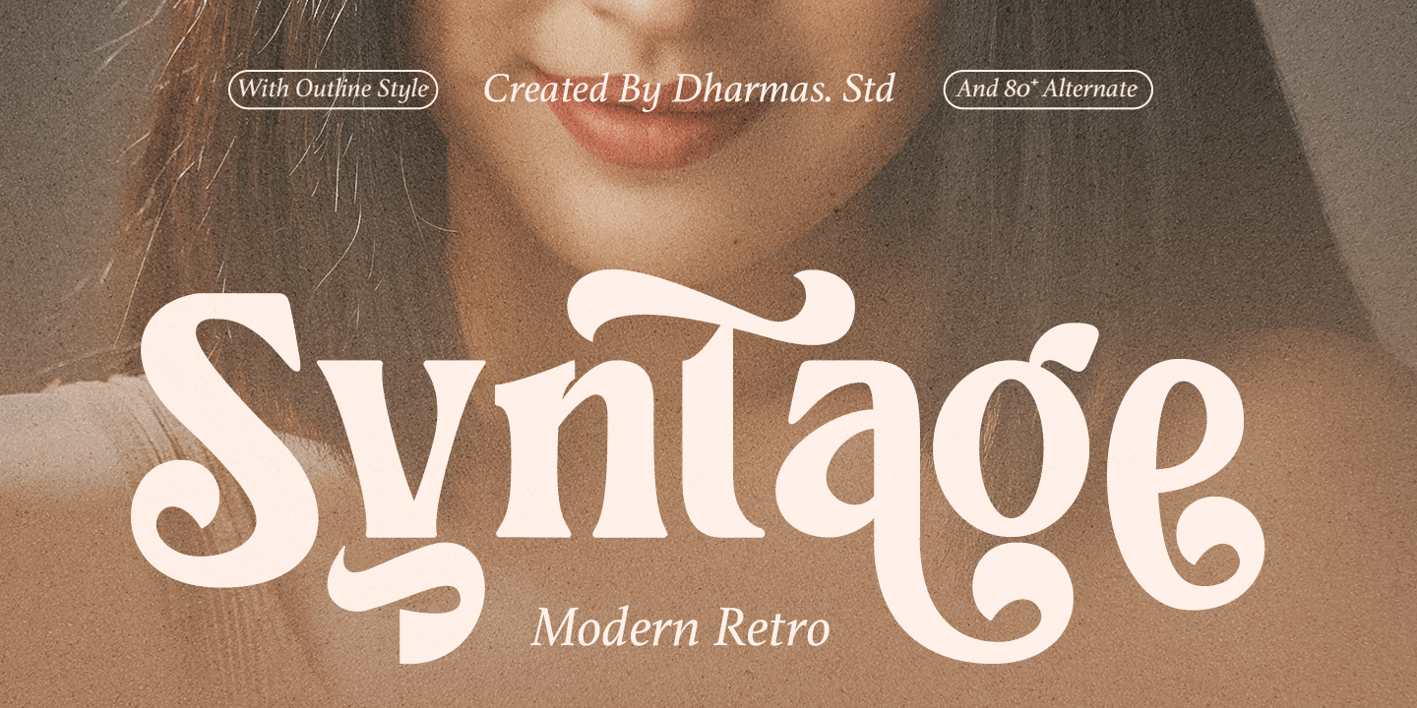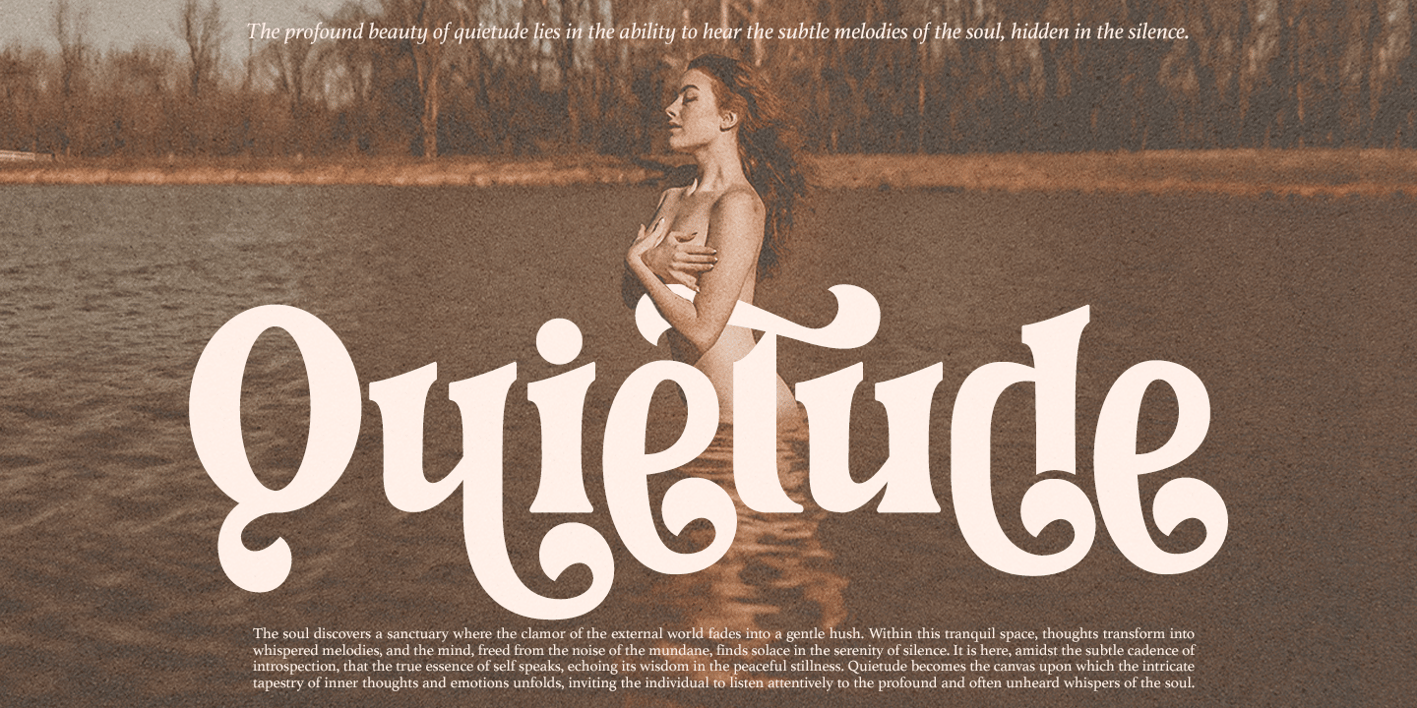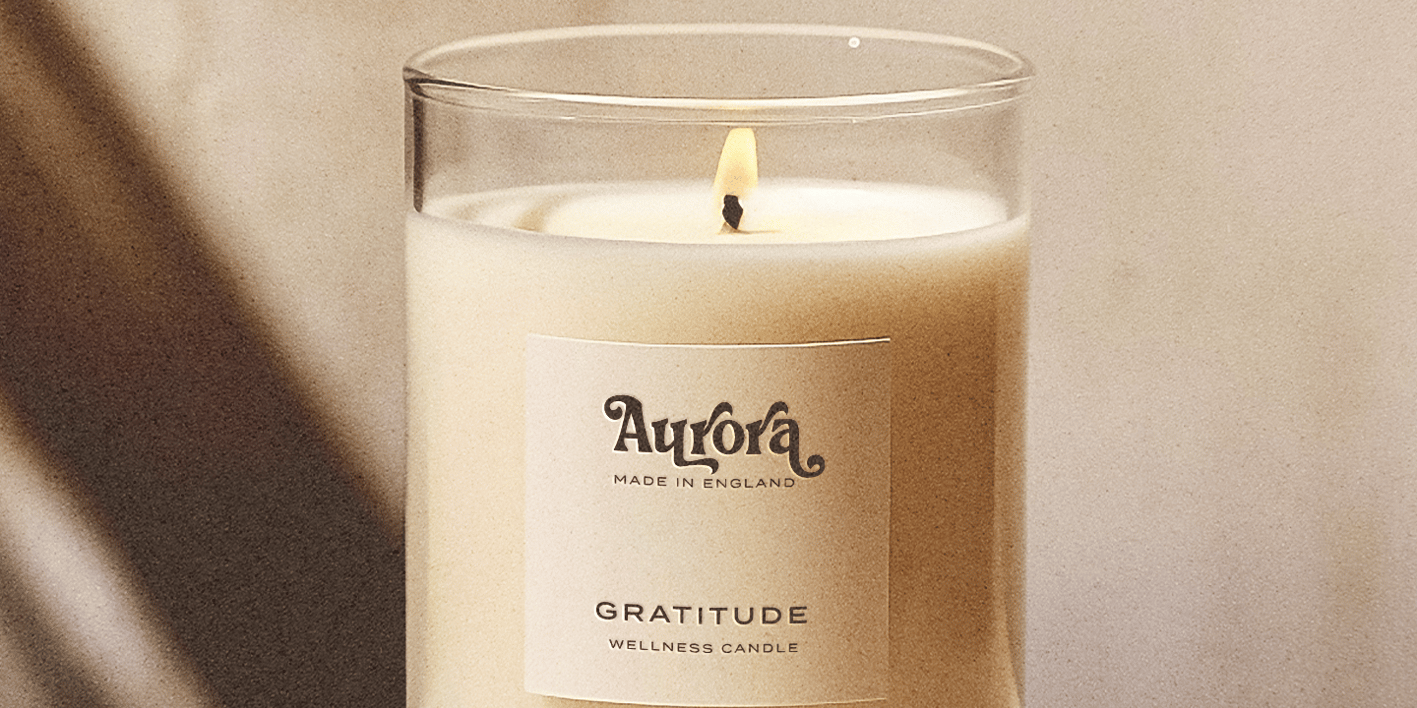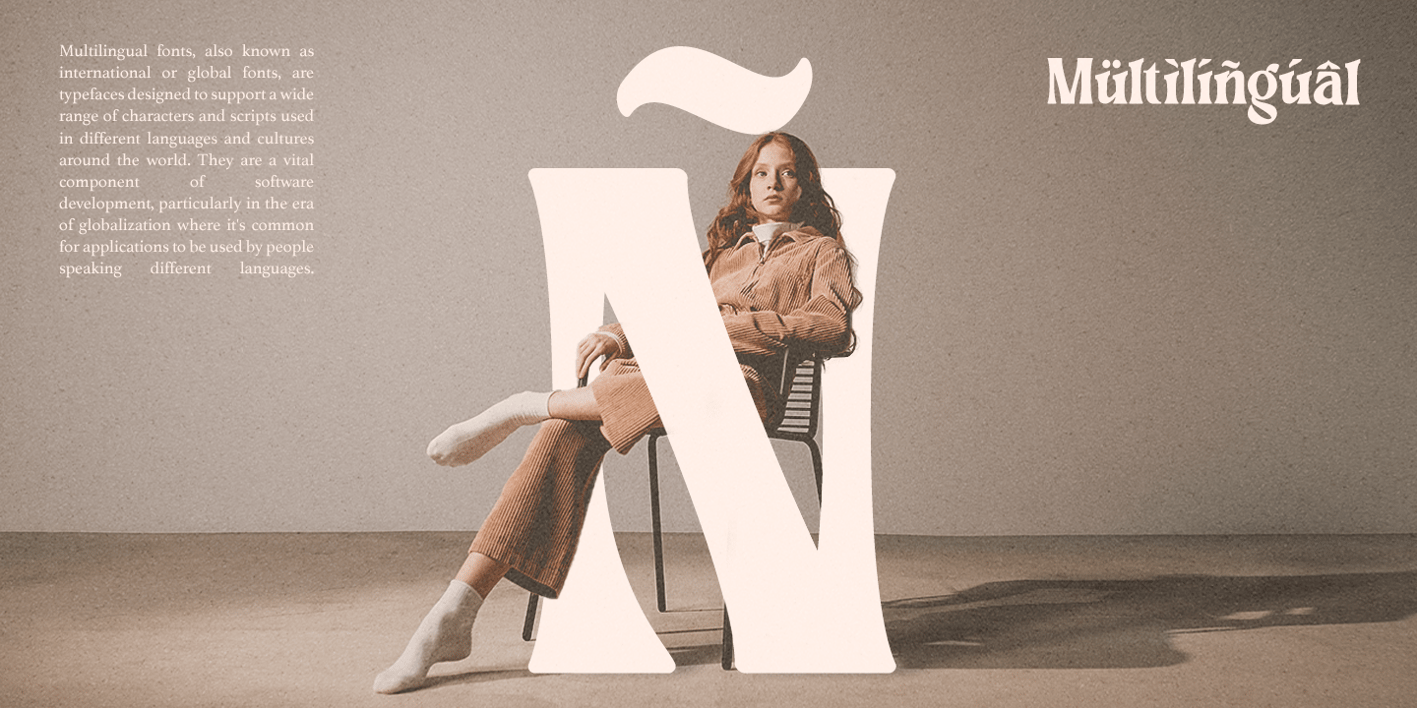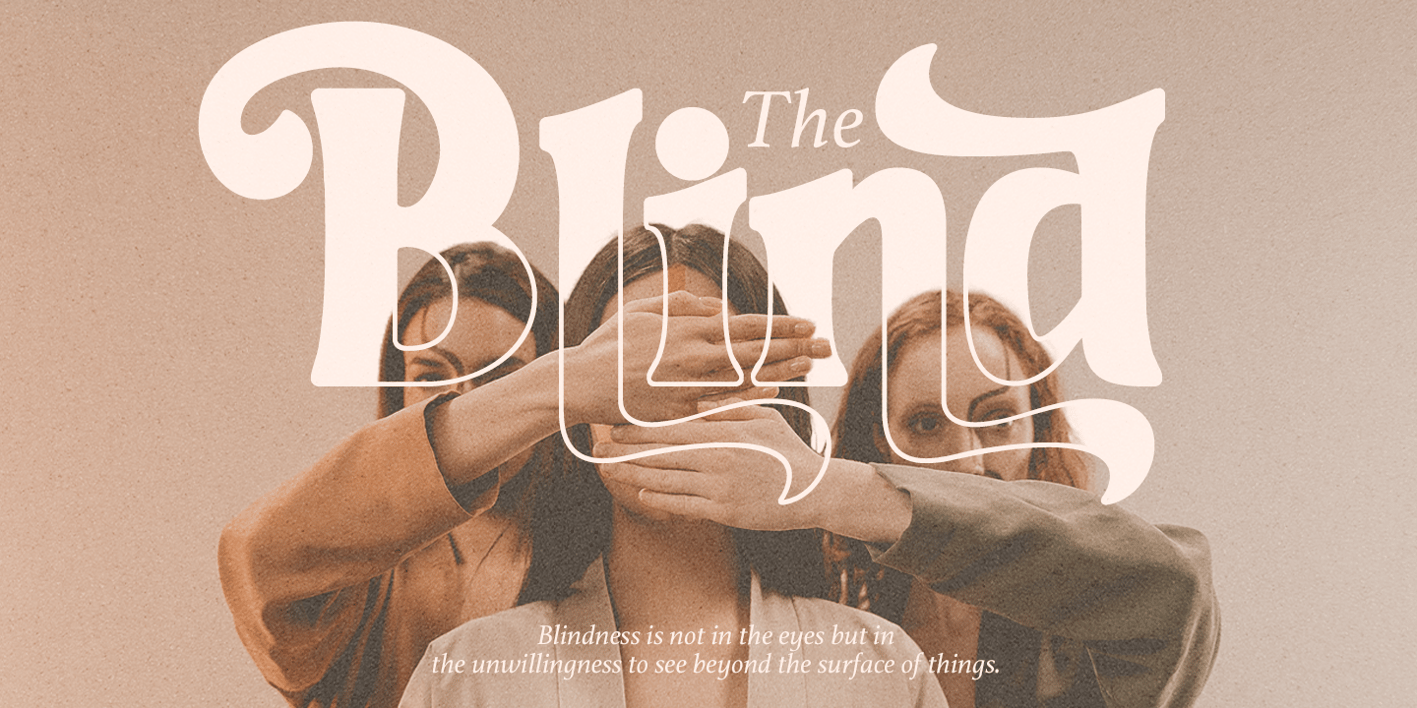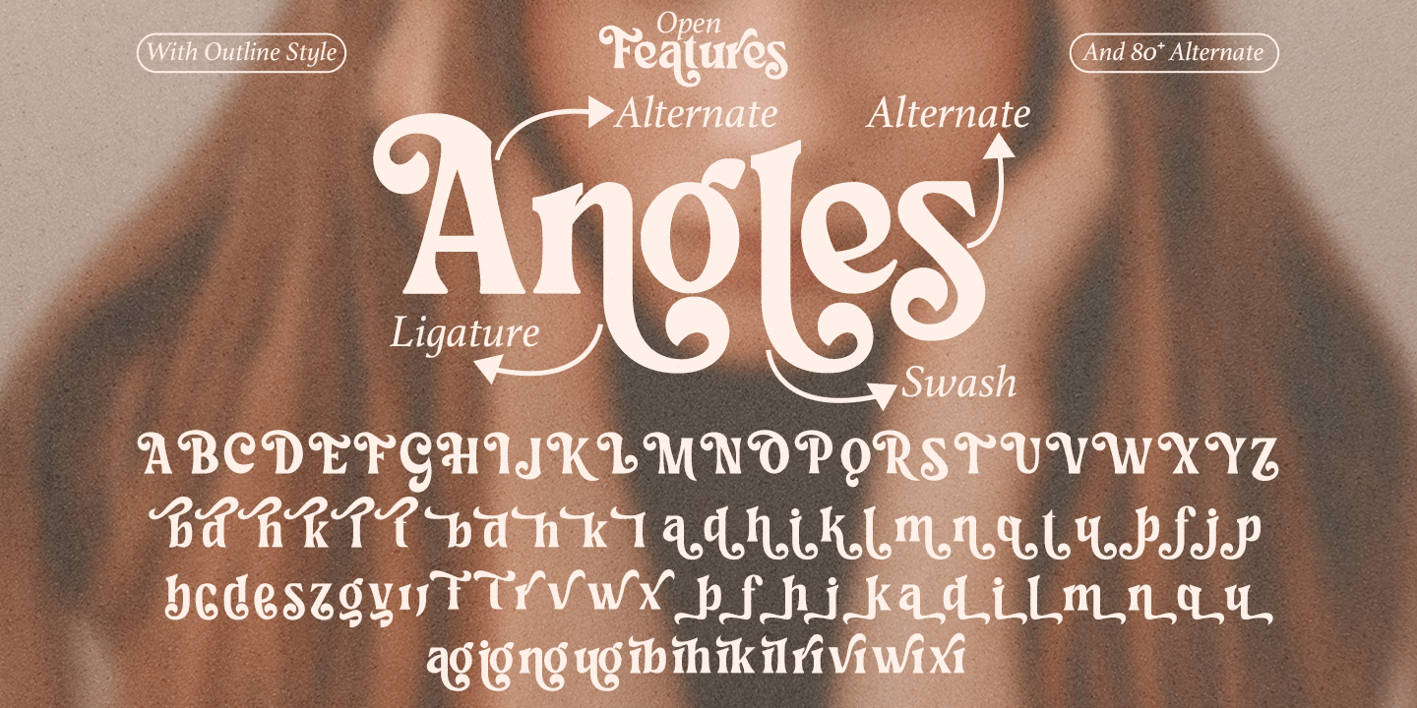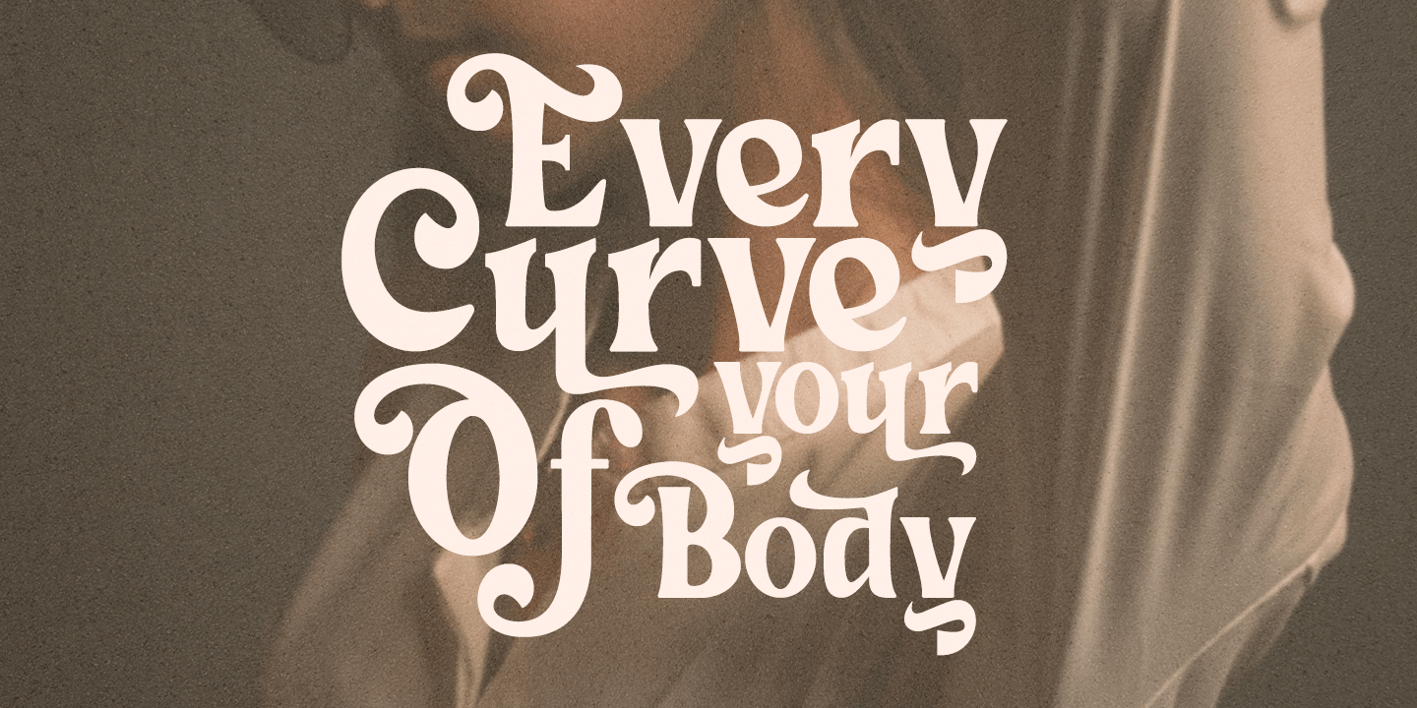
Syntage Font
Introducing Syntage – a brand new serif with all the nostalgic vibes! I've started seeing classic, tightly-spaced serifs of the 80s & 90s making a comeback, and wanted to create the perfect one for you too! Syntage is a beautifully nostalgic upper and lowercase typeface and has 80+ Special Alternates that looks incredible in both large and small settings as a display and body text. I've been loving combining the Regular and Outline, whether all in word or in body text! What's Included? Syntage Main File 80+ Special Alternates Regular and Outline version Instructions (Access special characters in all apps, even in Cricut Design) Accessible in Adobe Illustrator, Adobe Photoshop, Microsoft Word even Canva! PUA Encoded Characters. Fully accessible without additional design software Language Support: Danish, English, Estonian, Filipino, Finnish, French, Friulian, Galician, German, Gusii, Indonesian, Irish, Italian, Luxembourgish, Norwegian Bokmål, Norwegian Nynorsk, Nyankole, Oromo, Portuguese, Romansh, Rombo, Spanish, Swedish, Swiss-German, Uzbek (Latin)